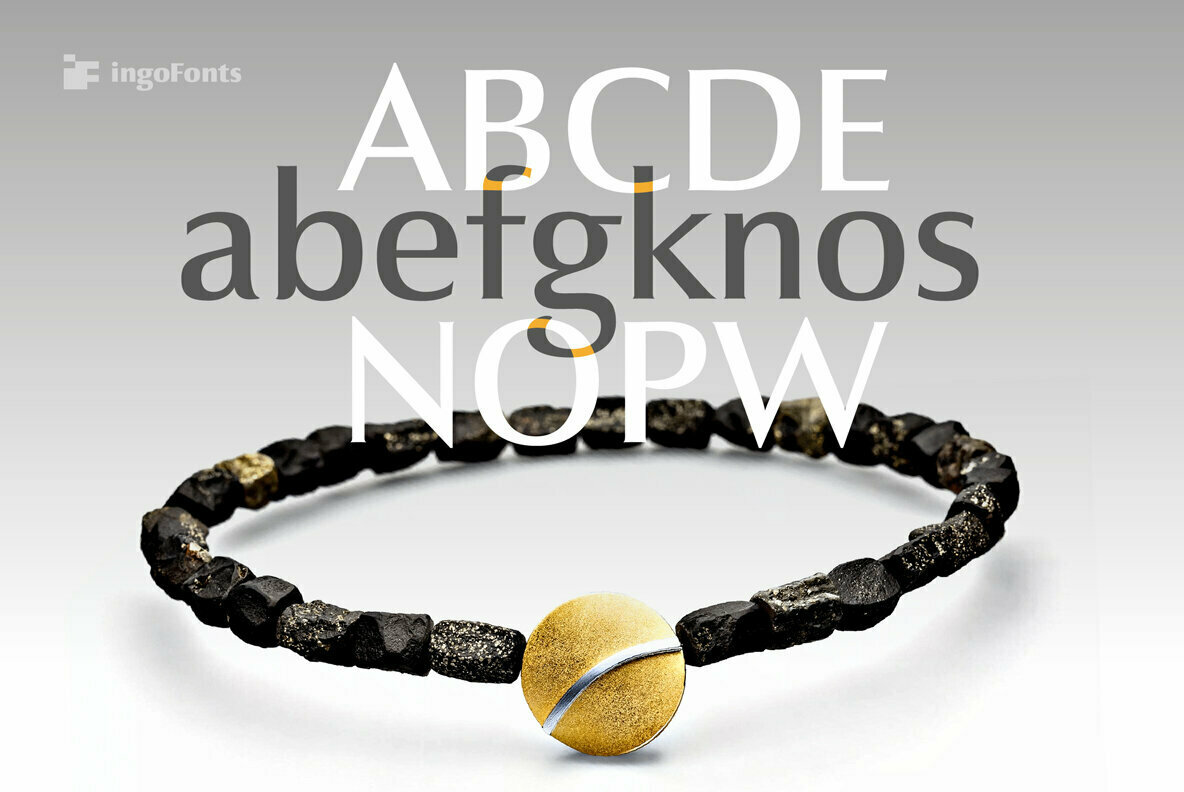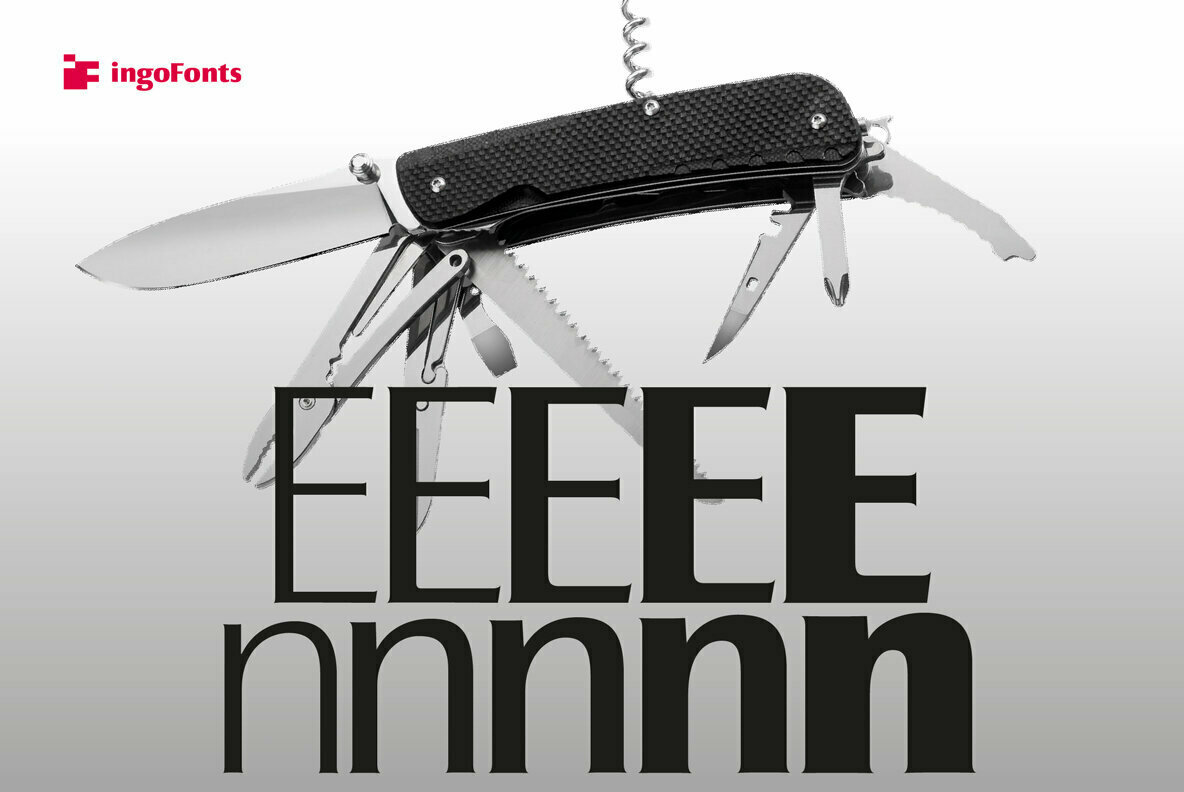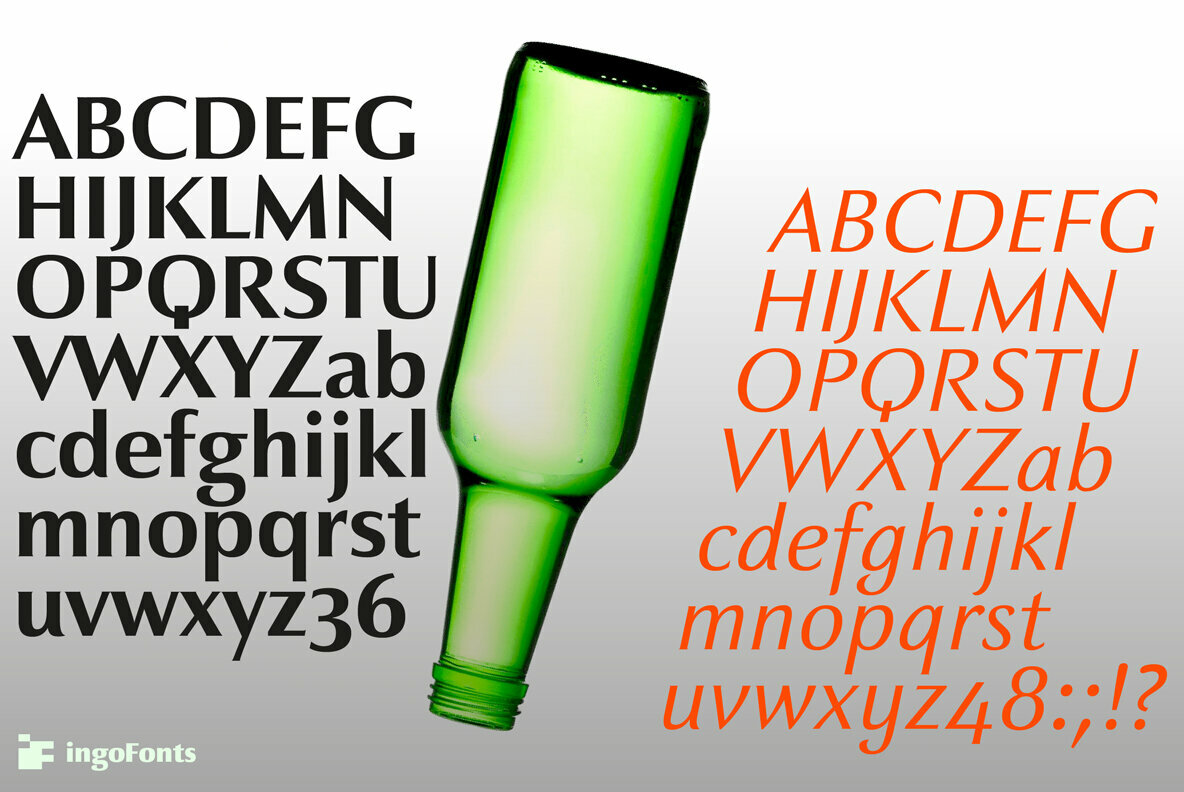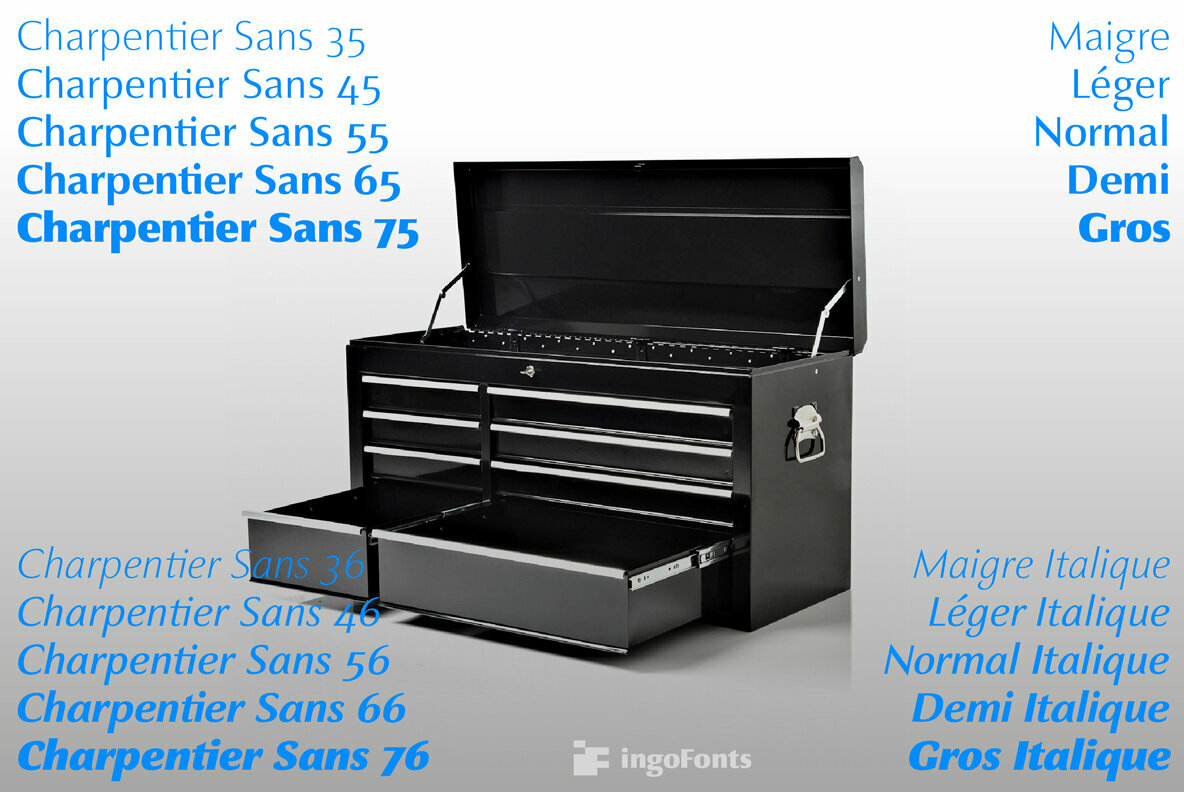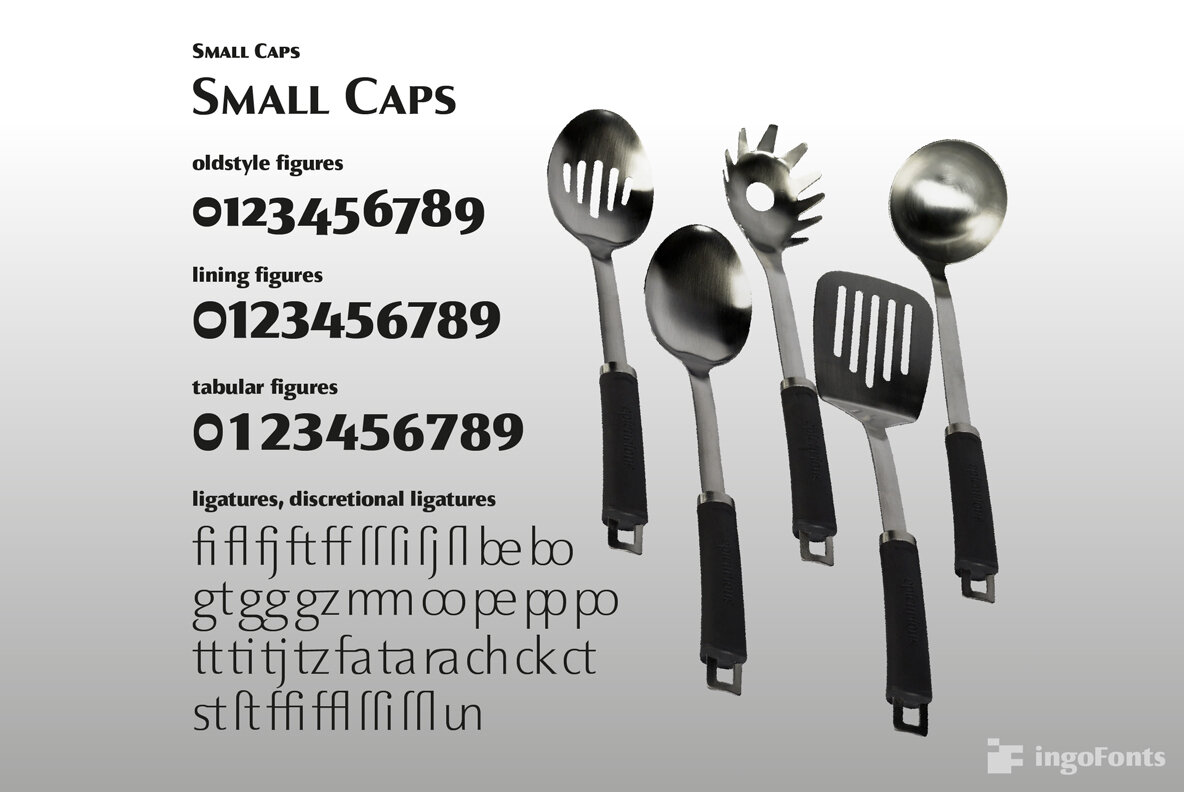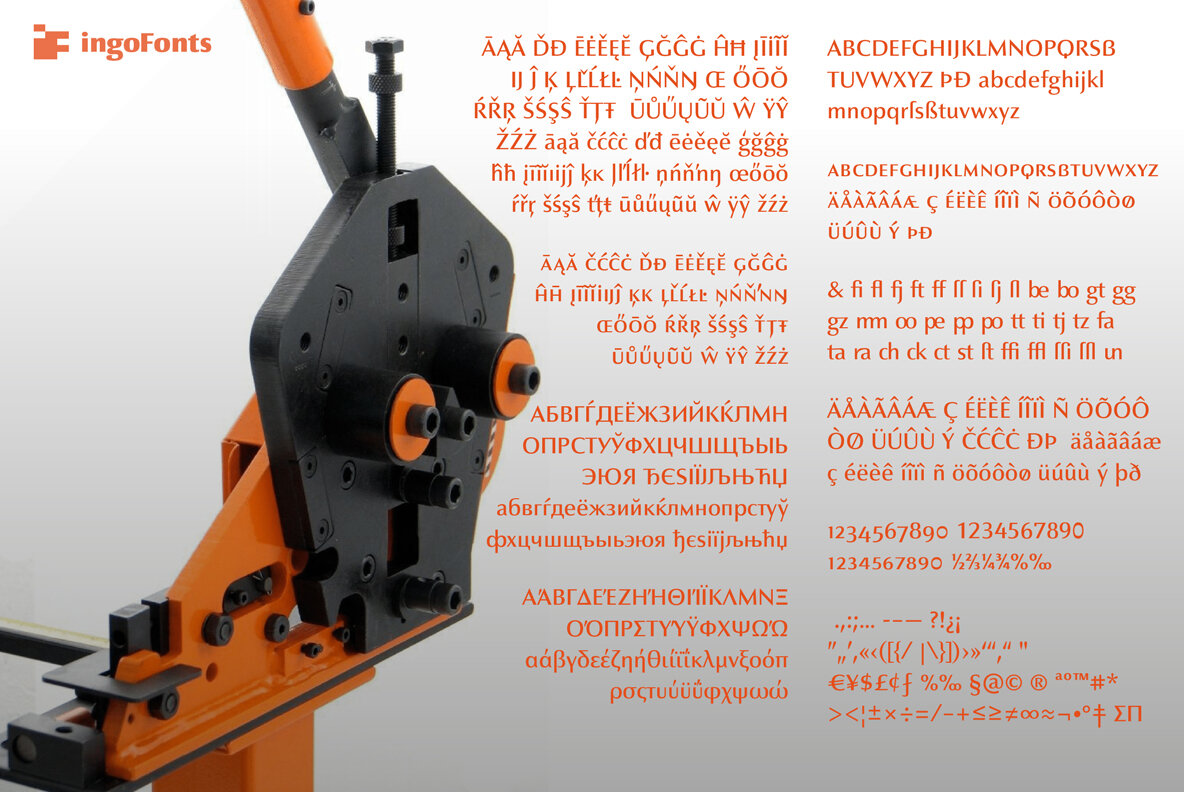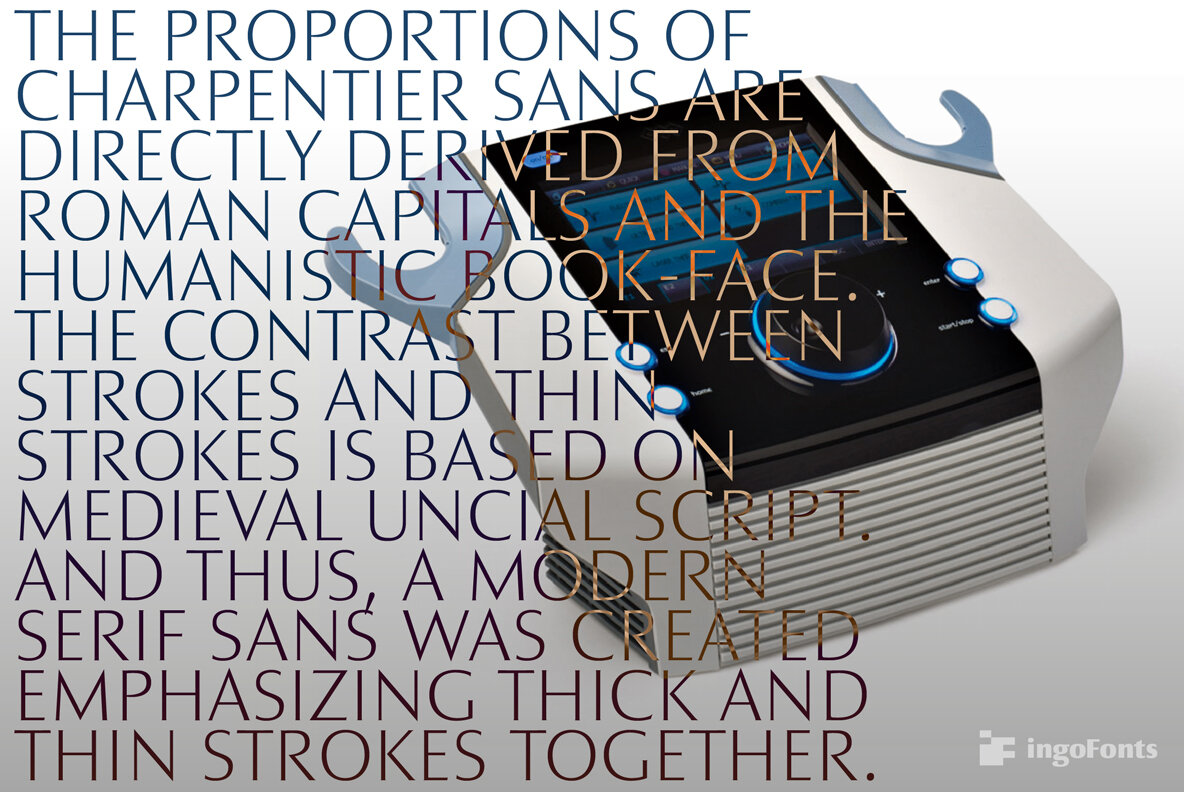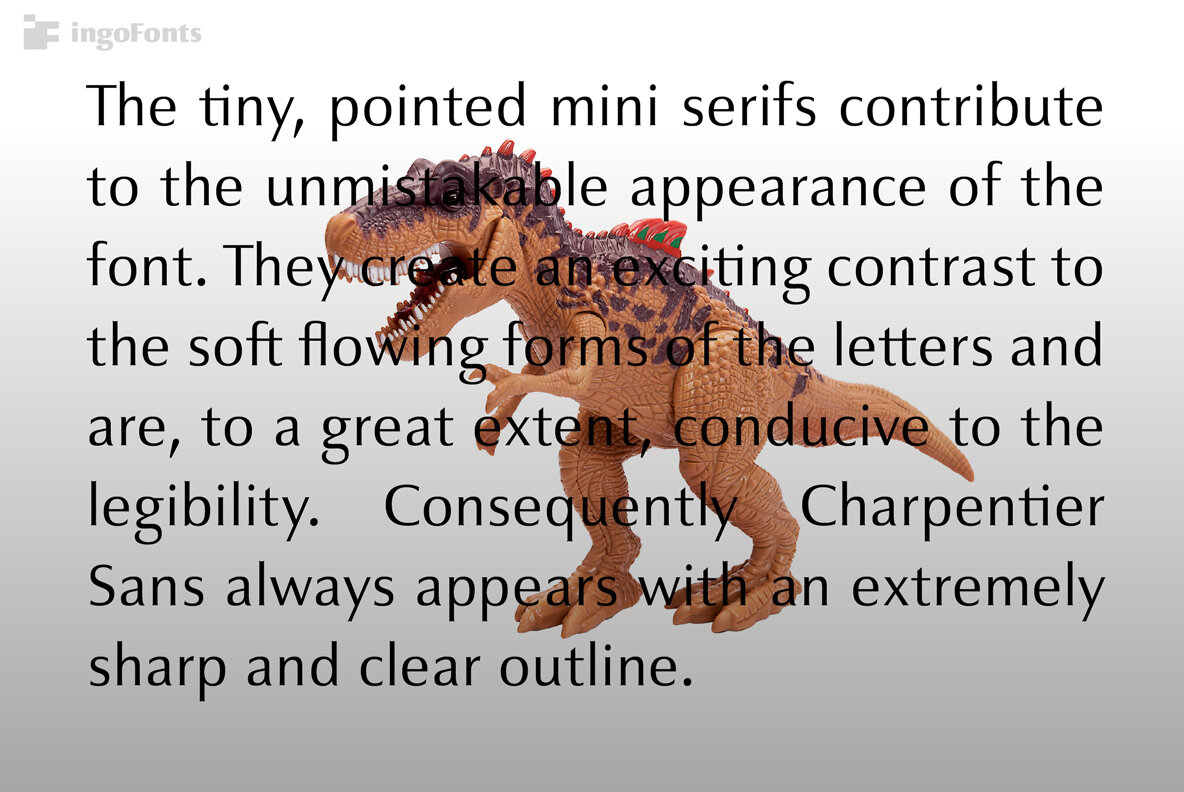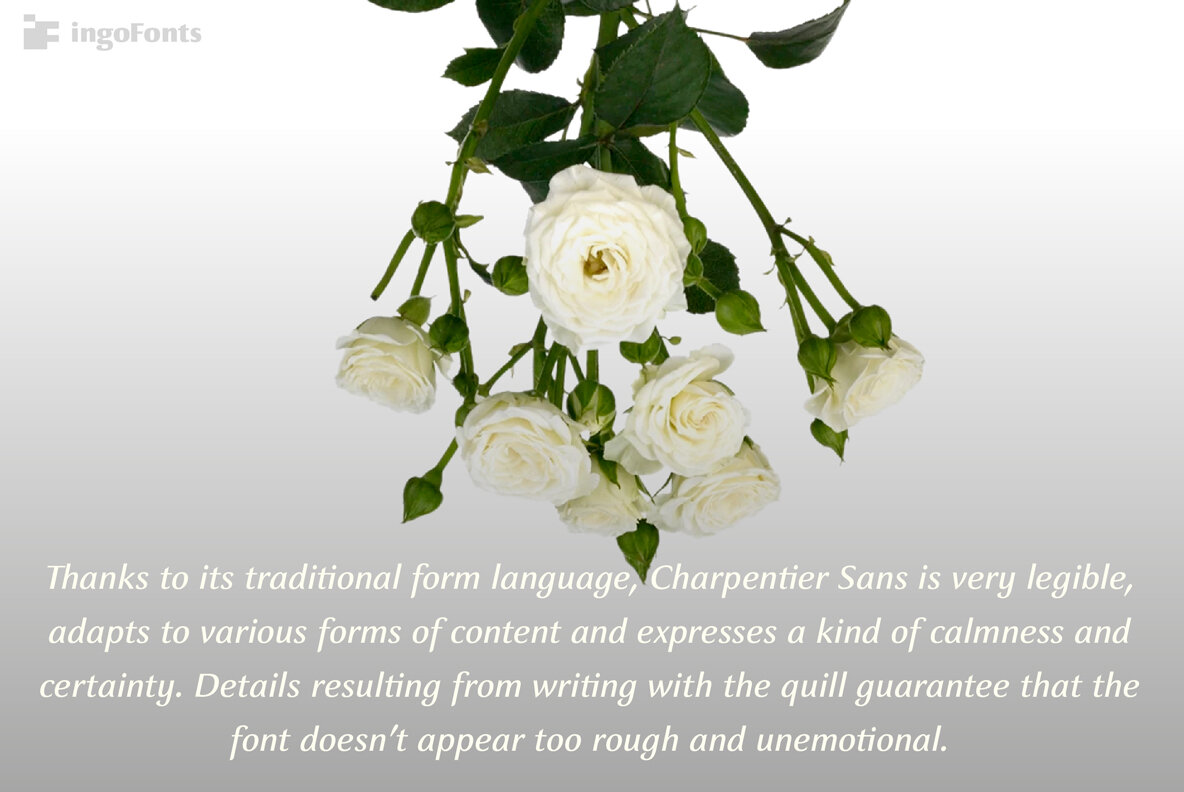
Charpentier Sans Pro Font
A humanistic sans serif
The proportions of Charpentier Sans are directly derived from Roman capitals and the humanistic book-face. The contrast between strokes and thin strokes is based on medieval uncial script. And thus, a modern serif sans was created emphasizing thick and thin strokes together.
The first version of this font was created in 1994 within the framework of the bid placed by the city of Graz to become the location for the Winter Olympics in 2006. Appropriately, its original name was ”Olympia.“
The font is intended to embody classic ideals as well as to meet modern demands.
Thanks to its traditional form language, Charpentier Sans is very legible, adapts to various forms of content and expresses a kind of calmness and certainty. Details resulting from writing with the quill guarantee that the font doesn’t appear too rough and unemotional.
Even the tiny, pointed mini serifs contribute to the unmistakable appearance of the font. They create an exciting contrast to the soft flowing forms of the letters and are, to a great extent, conducive to the legibility. Consequently Charpentier Sans always appears with an extremely sharp and clear outline.
Charpentier Sans Italique has an even more distinct ductus derived from writing. Especially the rounded forms from a, e, f, g and y reflect the handwritten humanistic cursive.
Charpentier Sans is comprised of many ligatures, including discretionary ligatures, plus proportional medieval and capital figures as well as tabular figures.
Above and beyond the ”normal“ Latin typeface system, small caps are available as an especially elegant form of distinction.